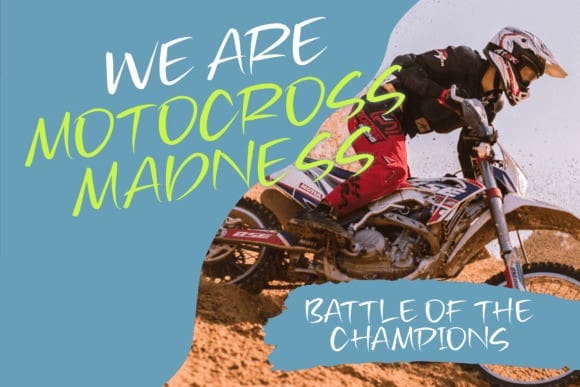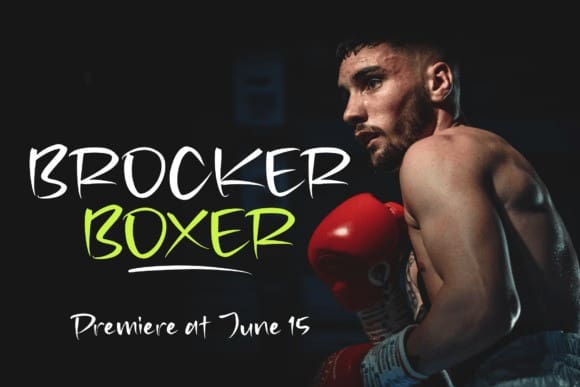
Dystopian Society Font
Dystopian Society Font – Brush Handwritten Font, suitable for any projects such as logos, branding projects, homeware designs, product packaging, mugs, quotes, posters, shopping bags, t-shirts, book covers, name cards, invitation cards, greeting cards, labels, photography, watermark, special events, and all your other lovely projects that need a beautiful script taste.